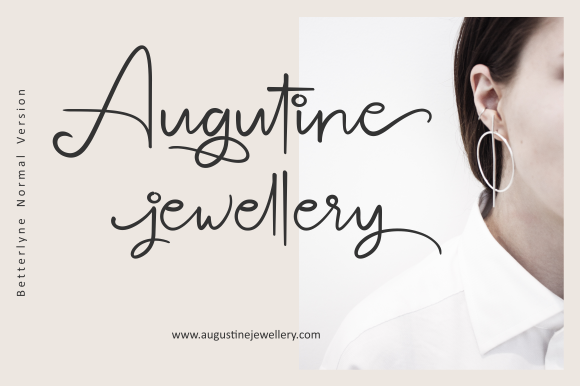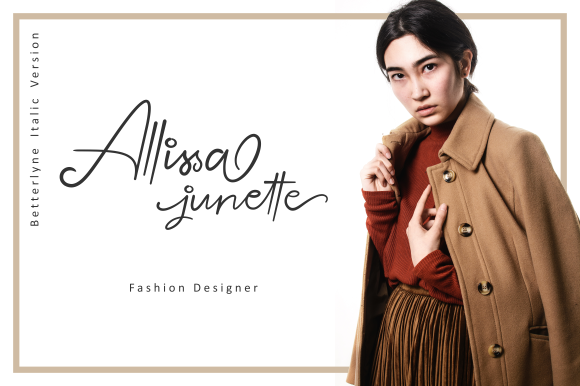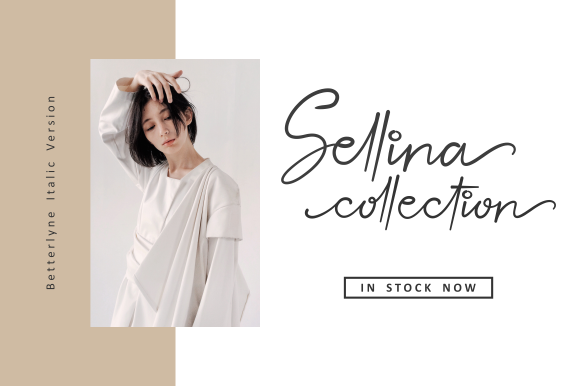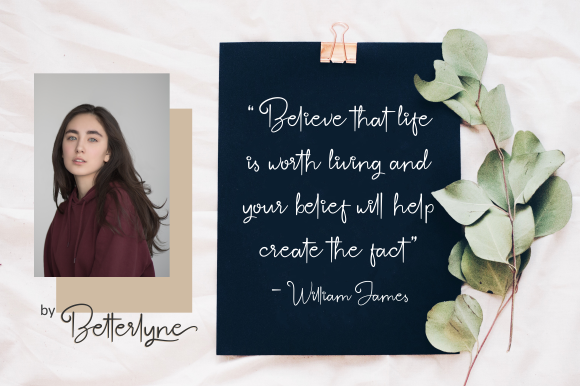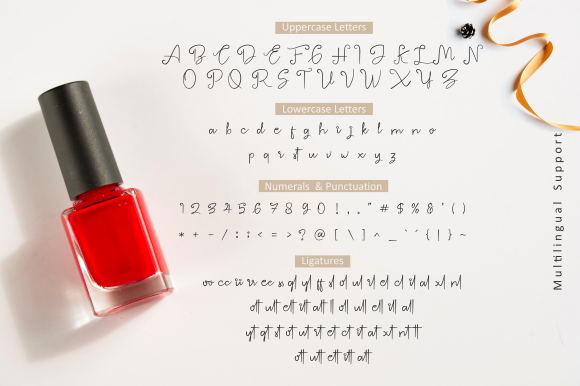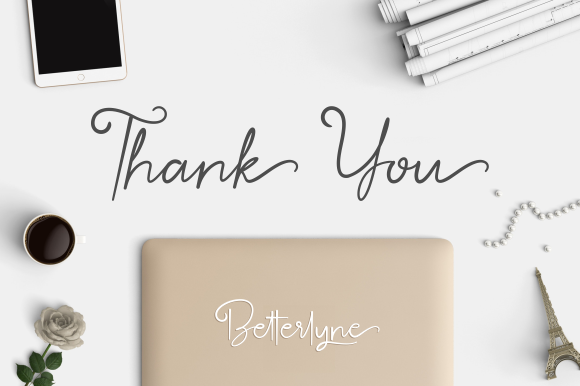
Betterlyne Script Font: Elevate Your Design with Elegance and Sophistication
Are you looking for a font that can add a touch of modern elegance to your design project? Look no further than the Betterlyne Script Font. This beautiful font is designed to provide a high level of stylistic flexibility, making it perfect for a wide range of applications, from logos and name tags to wedding invitations and greeting cards.
A Carefully Crafted Font for Elegant Connections
The Betterlyne Script Font has been carefully crafted to ensure that each letter can be connected elegantly, either using alternate characters or not. This attention to detail makes it easy to create beautiful, flowing text that is sure to impress. The font includes a range of stylistic alternates, allowing you to add a unique touch to your design.
Key Features of the Betterlyne Script Font
- Stylistic Alternates: The Betterlyne Script Font includes a range of stylistic alternates, allowing you to add a unique touch to your design.
- Swashes: The font includes start and ending swashes, as well as middle swashes for some letters, giving you even more flexibility.
- Ease of Use: The Betterlyne Script Font is easy to use, allowing you to focus on your design rather than getting bogged down in complicated font mechanics.
The Betterlyne Script Font is perfect for a wide range of applications, including:
- Logos: Create a professional and elegant logo that will help your business stand out.
- Name Tags: Add a touch of sophistication to your name tags, perfect for events, conferences, and more.
- Wedding Invitations: Create beautiful and elegant wedding invitations that will set the tone for your special day.
- Greeting Cards: Add a personal touch to your greeting cards, making them perfect for birthdays, holidays, and more.
- Short Quotes: Use the Betterlyne Script Font to add a touch of elegance to your short quotes, perfect for social media, blogs, and more.
Why Choose the Betterlyne Script Font?
There are many script fonts on the market, but the Betterlyne Script Font stands out for several reasons:
- Unique and Elegant Design: The Betterlyne Script Font has a unique and elegant design that will add a touch of sophistication to your project.
- Highly Versatile: The font is highly versatile, making it perfect for a wide range of applications.
- Easy to Use: The Betterlyne Script Font is easy to use, even for those with limited design experience.
Tips for Getting the Most Out of the Betterlyne Script Font
To get the most out of the Betterlyne Script Font, here are a few tips:
- Experiment with Different Alternates: Don’t be afraid to experiment with different alternates to find the perfect look for your project.
- Use Swashes to Add Flair: Use swashes to add a touch of flair to your design, making it more elegant and sophisticated.
- Keep it Simple: Don’t overcomplicate your design. The Betterlyne Script Font is perfect for simple, elegant designs.
The Betterlyne Script Font is a beautiful and elegant font that is perfect for designers and crafters looking to add a touch of sophistication to their project. With its range of stylistic alternates, swashes, and ease of use, it’s perfect for a wide range of applications. Whether you’re creating a logo, wedding invitation, or greeting card, the Betterlyne Script Font is sure to impress.